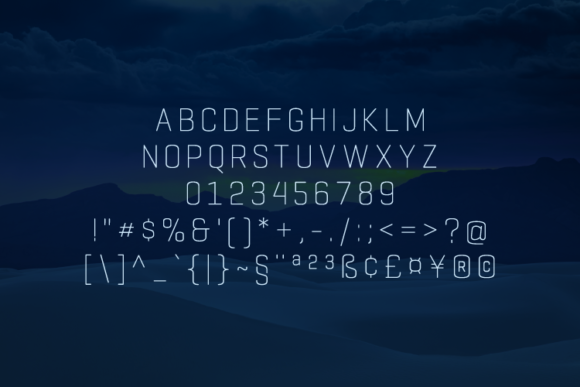
Introduction to Ornella Extra Light Font
As designers, we’ve all been there – staring at a blank canvas, trying to bring our creative vision to life. The perfect font can make all the difference in setting the tone for a project. For me, that moment came when I stumbled upon the Ornella Extra Light Font – a game-changing sans serif type family that added a touch of modernity to my design.
Ornella’s friendly and synergetic profile, combined with its rounded forms and low contrast, makes it a highly legible typeface perfect for any text application or typographic reproduction. Whether you’re working on a creative project or simply need a reliable design resource, Ornella Extra Light Font is an excellent choice. Plus, with a free download available, you can get started right away and explore its full potential.
Key Features of Ornella Extra Light Font
- High-quality design resource ideal for creative projects requiring a light and elegant touch.
- Unique characteristics include its delicate lines and subtle curves, making it perfect for creating a sense of sophistication and refinement in your design.
- Designed to work well in a variety of contexts, from fashion and beauty to luxury and lifestyle branding, making it a valuable addition to any design library.
Honest Review: Ornella Extra Light Font
I recently had the chance to work with the Ornella Extra Light Font, and I must say it’s a solid addition to any design resource library. The font’s elegant and refined aesthetic makes it perfect for high-end creative projects, especially those requiring a touch of sophistication.
- ✨ High-quality design: The Ornella Extra Light Font boasts a crisp, clean design that’s ideal for a wide range of applications.
However, I did encounter a few limitations with the Ornella Extra Light Font:
- ⚠️ Limited font sizes: The font’s design starts to break down at larger font sizes, which can make it less suitable for large-scale applications.
- ⚠️ Limited language support: The font’s character set is limited to a few languages, which may not be ideal for designers working on international projects.
Overall, the Ornella Extra Light Font is a great addition to any design library. While it may have some limitations, its high-quality design and free download make it a valuable resource for designers working on high-end creative projects.
Use the Ornella Extra Light Font in combination with a bold font to create a striking contrast. Experiment with different font sizes and styles to add visual interest to your design. The font’s transparent background feature allows for easy layering and manipulation.
The Ornella Extra Light Font is perfect for creating elegant and sophisticated designs, such as wedding invitations, business cards, and marketing materials. Its high-quality and transparent background make it an ideal choice for designers looking to create seamless and professional designs.